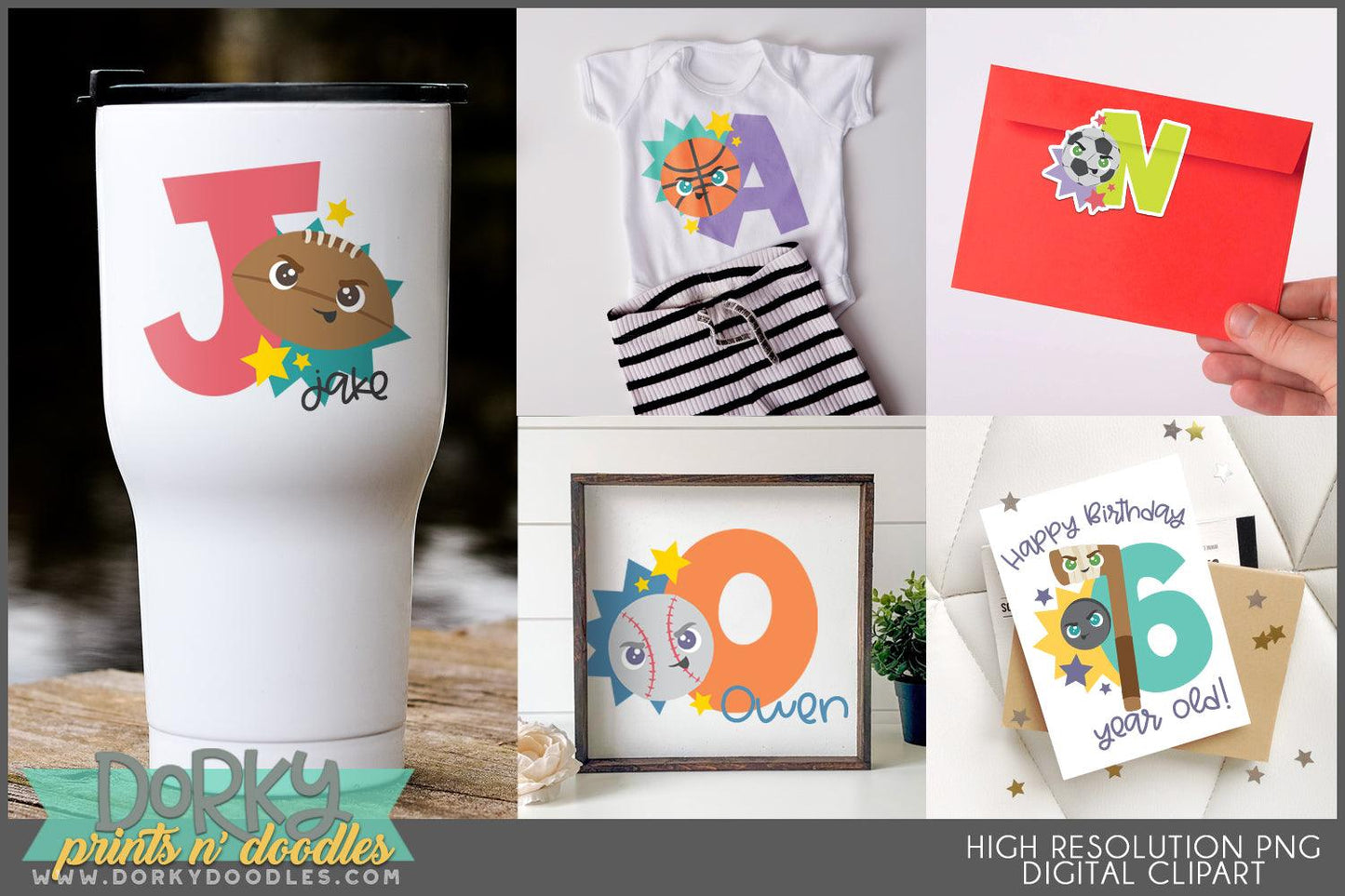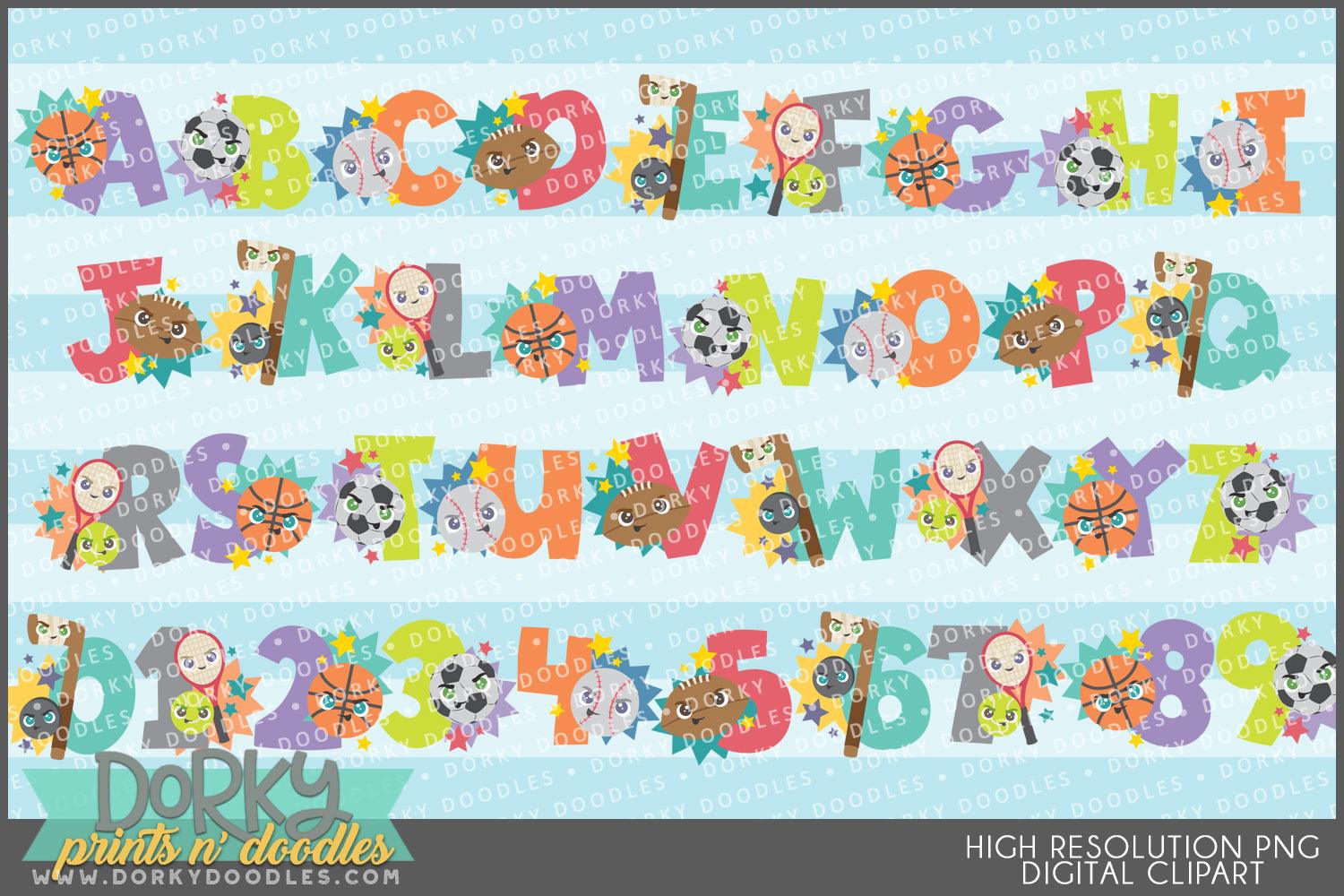
Sports Alphabet Clipart
• letters A-Z featuring footballs, soccer balls, baseballs, hockey, basketballs and tennis
• numbers 0-9 featuring cute sport images